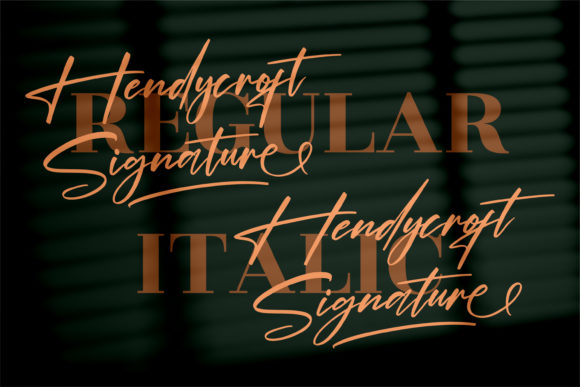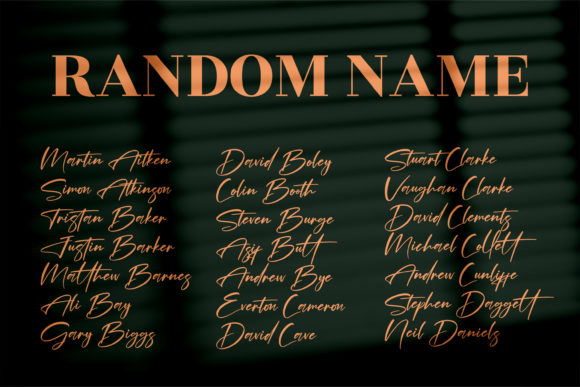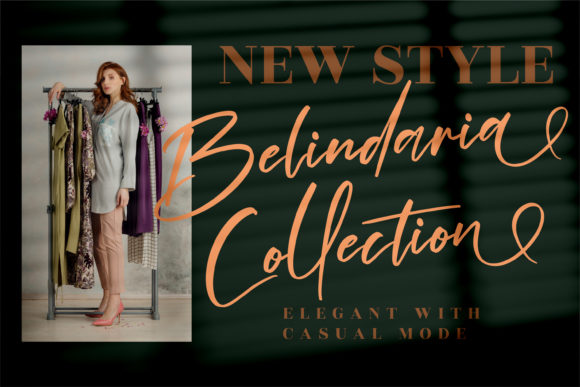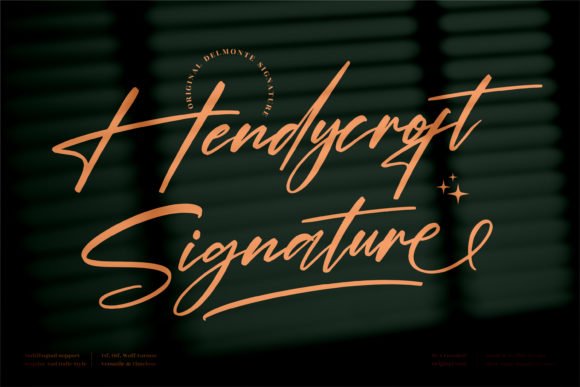
Introduction to Hendycroft Signature Font
Hendycroft Signature is a lovely script font featuring charming, playful characters that seem to dance along the baseline.
Add this font to your most creative ideas, and notice how it makes them stand out .
Hendycroft Signature Font offers exceptional quality and versatility, making it a valuable addition to your design toolkit. Whether you’re creating for personal projects or commercial use, Hendycroft Signature Font delivers professional results.